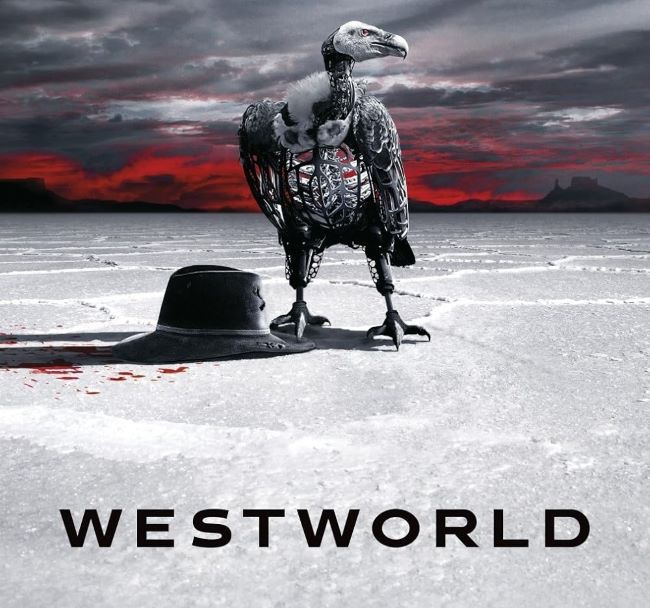
Westworld Font
Westworld Font captures the unique duality of HBO’s acclaimed science fiction series Westworld, blending Old West aesthetics with sleek technological themes. Its clean, modern lines with subtle Western-inspired touches reflect the show’s exploration of artificial intelligence within a frontier-themed park.
The typeface, likely based on Presicav, balances elegance and character, mirroring the android hosts’ sophisticated technology while evoking the frontier setting. It’s perfect for designers seeking a minimalist yet distinctive font. You can also explore more free fonts for personal and creative projects.